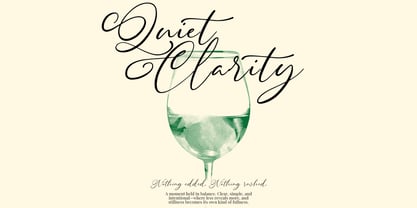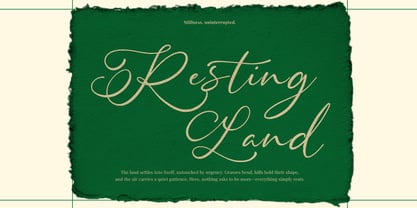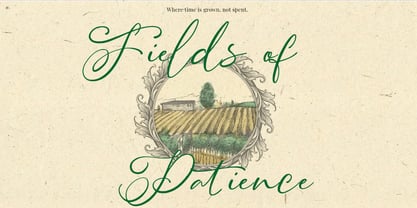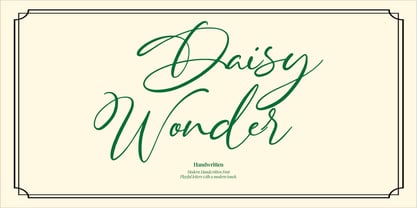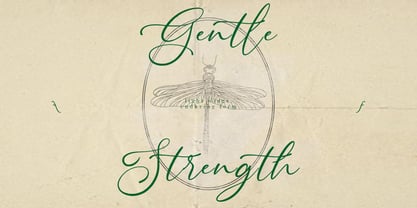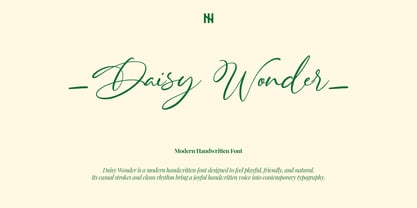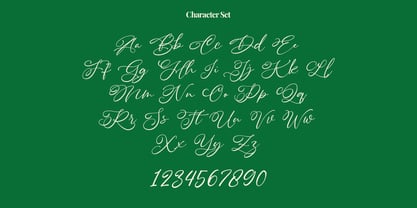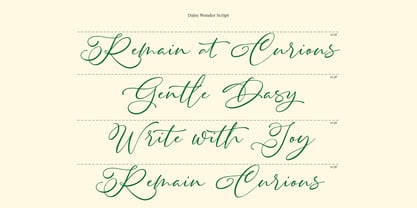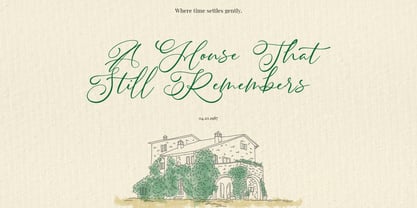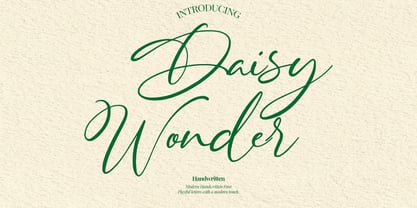
Daisy Wonder
The Daisy Wonder Font Family was designed by Virgiawan Listanto and published by Inviline. Daisy Wonder contains 1 styles. More about this family
Daisy Wonder is a contemporary handwritten script font that embodies warmth, softness, and natural elegance. Inspired by gentle countryside moments and timeless handwritten letters, this font offers a complete set of uppercase and lowercase letters, numerals, punctuation, and multilingual support. Designed with smooth, flowing strokes and charming alternates, Daisy Wonder is ideal for wedding invitations, branding, editorial headlines, packaging, quotes, logos, and lifestyle designs that desire a graceful, poetic, and personal touch. Its unique style enhances any project, making it a versatile choice for creative endeavors.